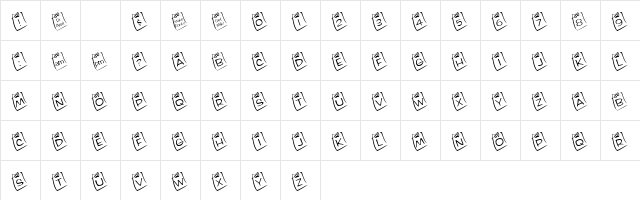
KR Lil Note Regular
Design Context for KR Lil Note
KR Lil Note is a composed and adaptable typeface that performs quietly and consistently across a wide range of design contexts.